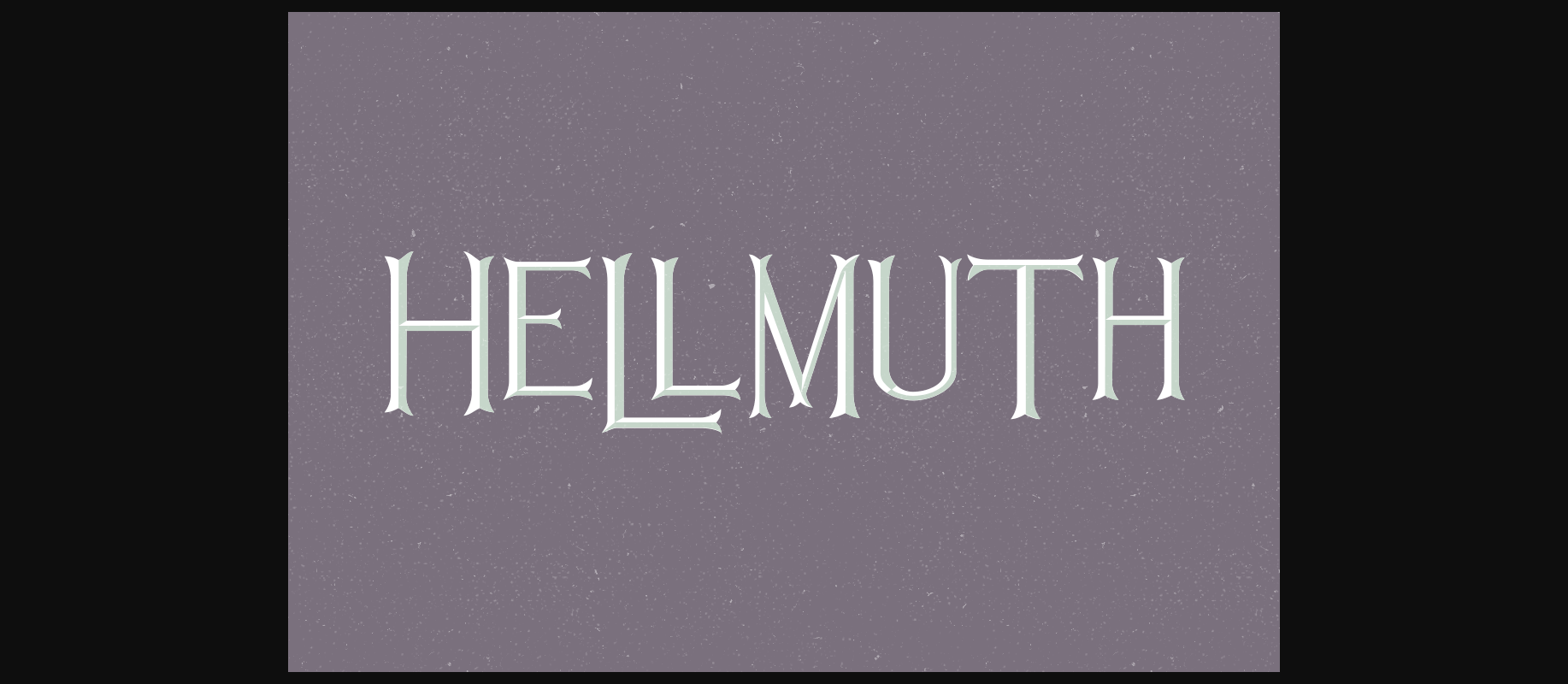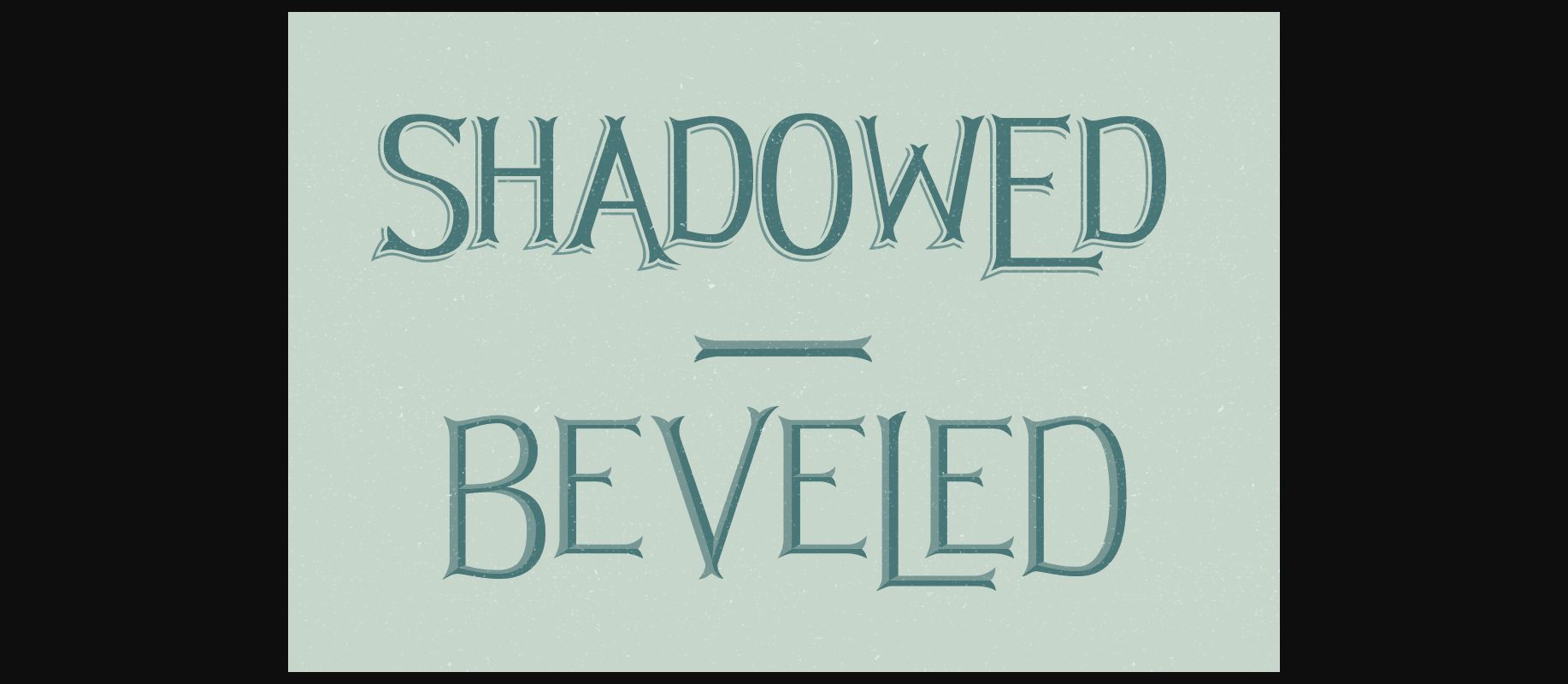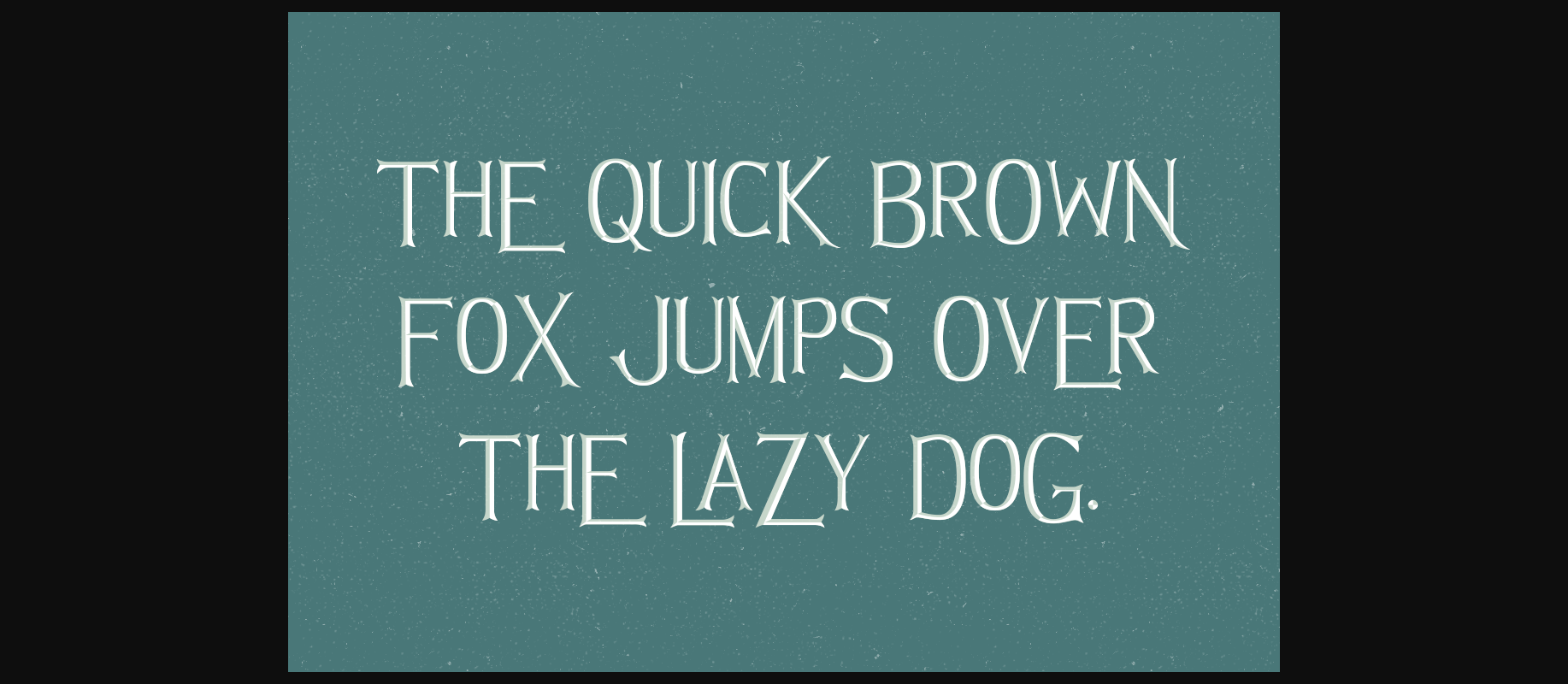
About Hellmuth Family Font
The Hellmuth is a font loosely based on the entrance to the Hellmuth Building in New York. Itβs suggested to mix up the lowercase and uppercase characters at random for the best results.
This family also includes a shadowed version and stackable shadow only and beveled options.